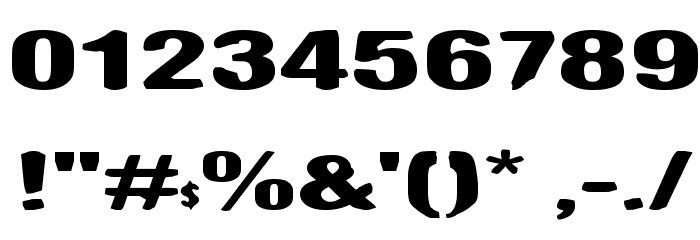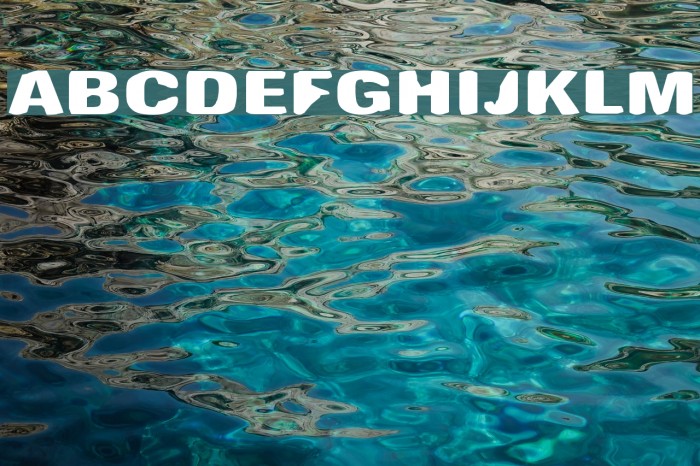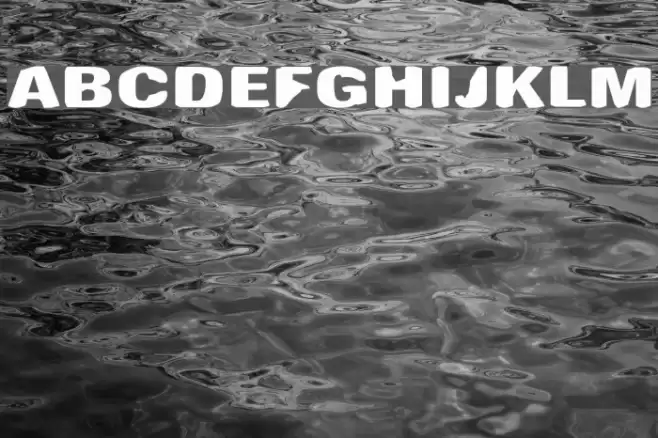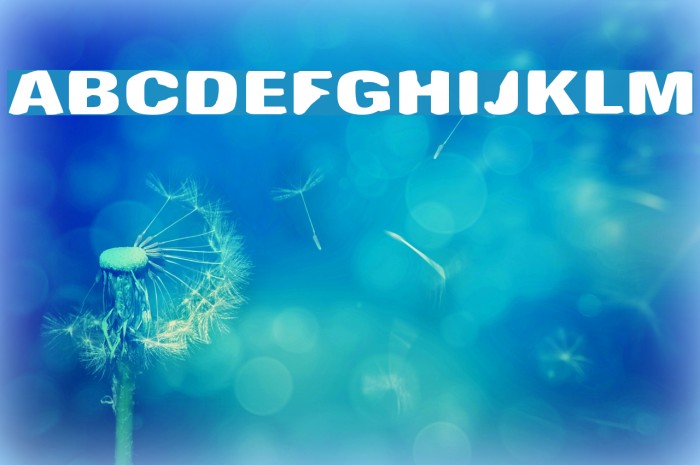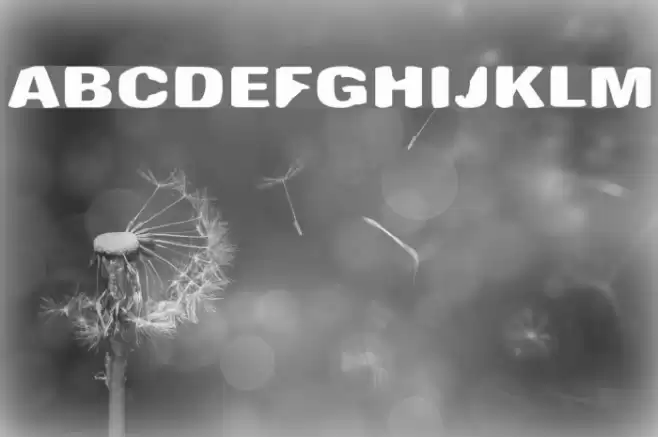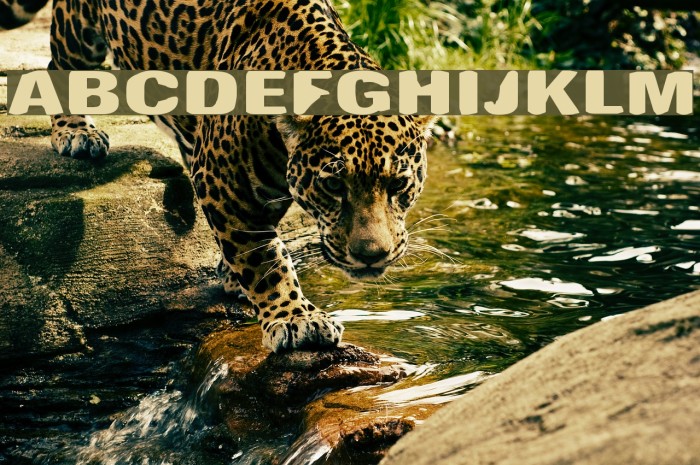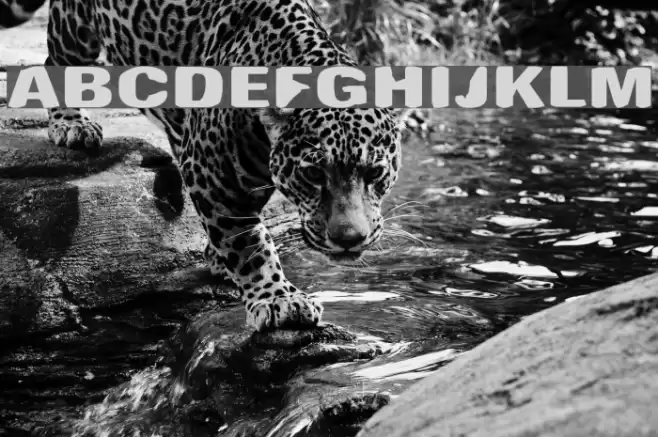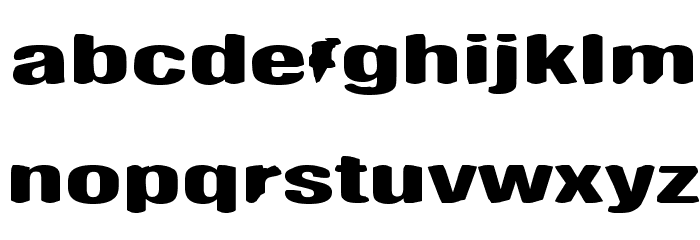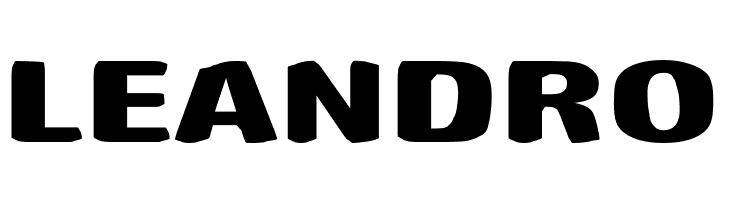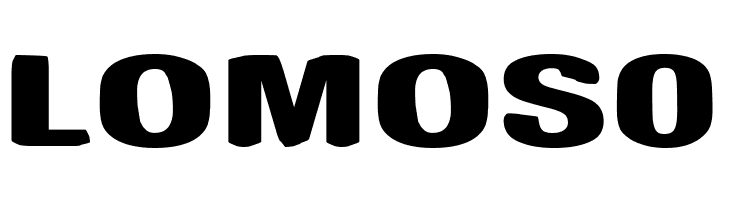
Antimony Funk Font
Antimony Funk Description
This font features a bold and dynamic style with a playful and slightly irregular design. The characters have a strong presence, with thick strokes and a unique flair that gives them a funky, modern look. The uppercase and lowercase letters maintain a consistent weight, while the numbers and special characters complement the overall aesthetic. The font's distinctive style makes it stand out, with certain letters having unexpected curves and angles that add to its charm. It's well-suited for creative projects that require a bold statement.
| Proposed Projects | Ideal for posters, album covers, branding, and any project needing a bold, creative touch. |